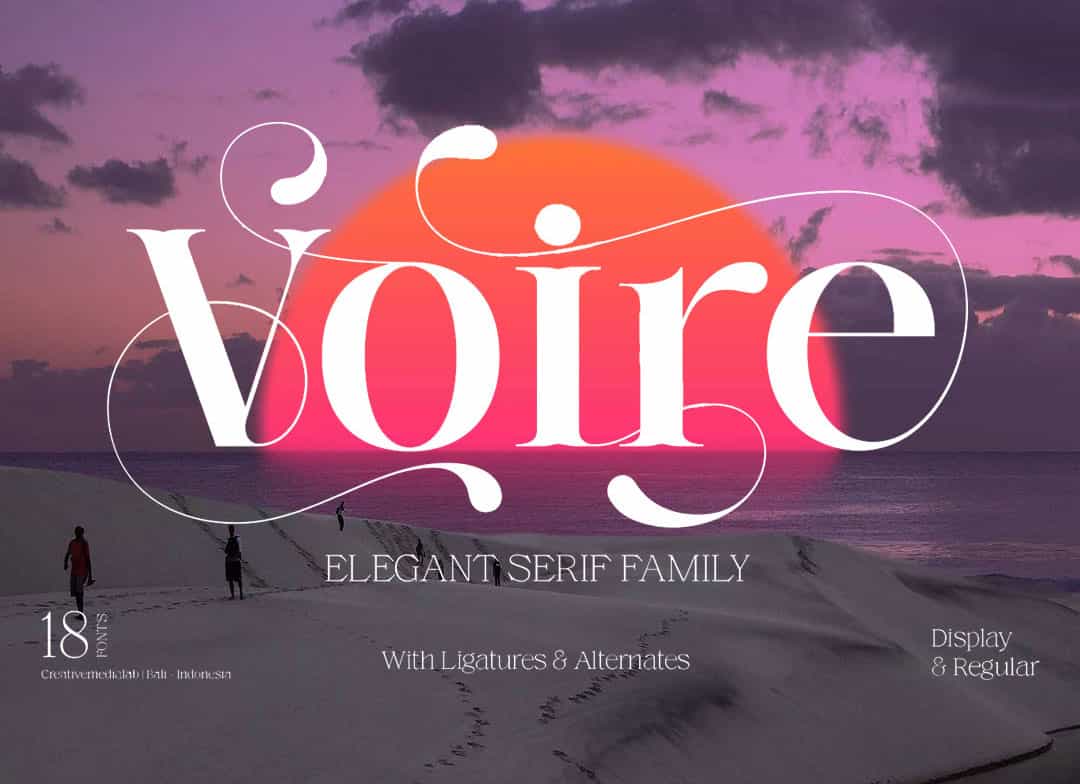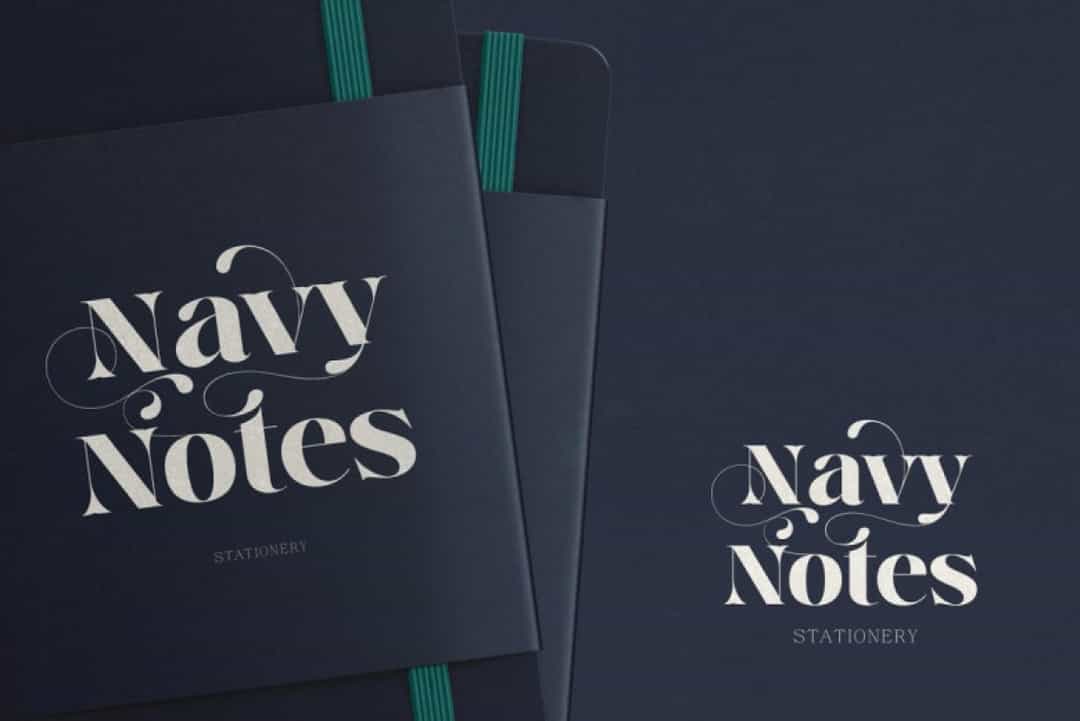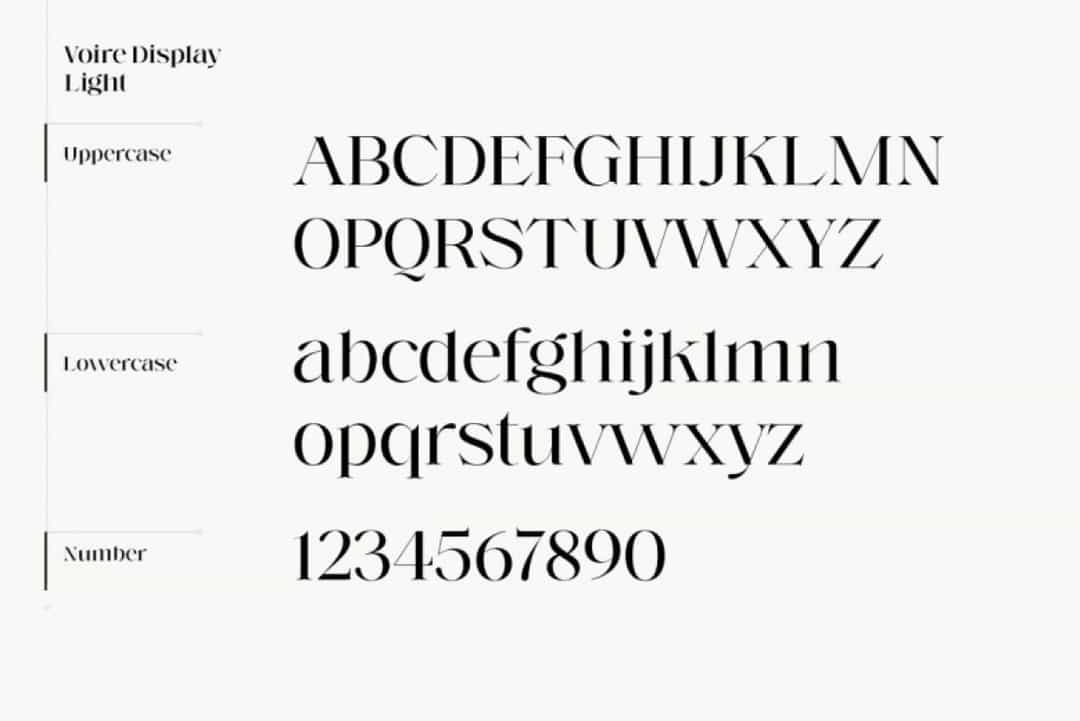
Voire font family is now available and features elegant elegance with modernity in a fun modern serif typeface family. Available as both regular and display versions with nine weight options from light to Black weights along with multiple alternative fonts and ligatures to meet every design need.